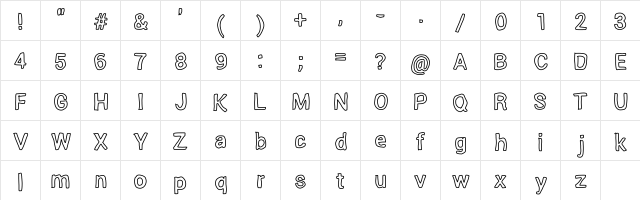
Outside inside outline Medium
Design Context for Outside inside outline Typeface
Outside inside outline brings ornamental detail and strong personality to headlines and identities, where visual impact matters more than quiet functionality.
Font Pairing: Pair with a clean neutral sans-serif for body copy to let Outside inside outline's character lead without overwhelming the composition.
Pro Tip: Use Outside inside outline exclusively at display sizes — it was designed to be seen, not read at length. Let a neutral companion handle body copy.